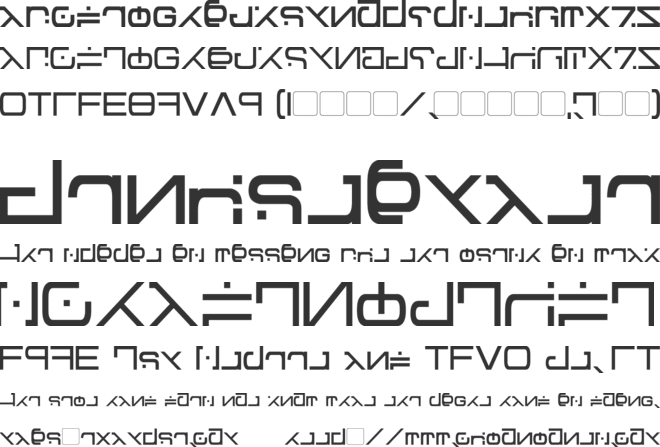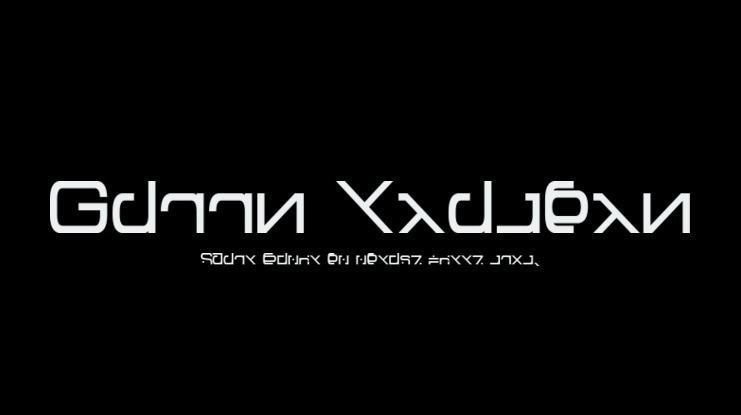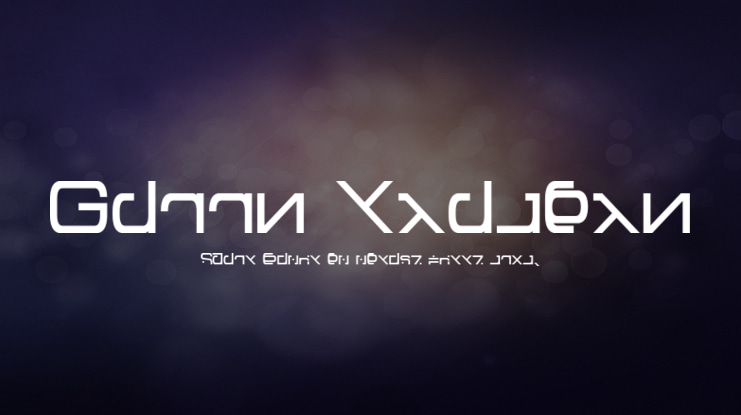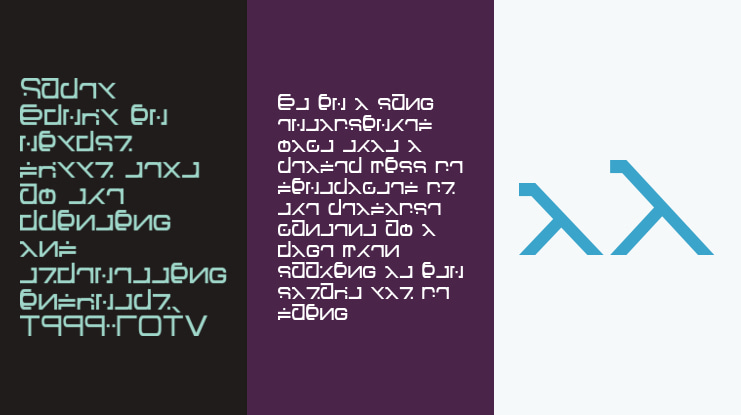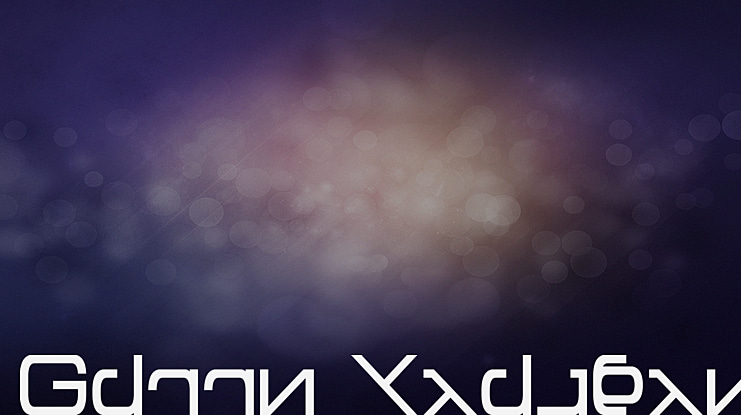
Green Martian Font Family
This is an alien-glyph typeface based on the 'alien' writing (usually Martian) found within DC comics over the years. Includes most common glyph mappings and accepted characters.